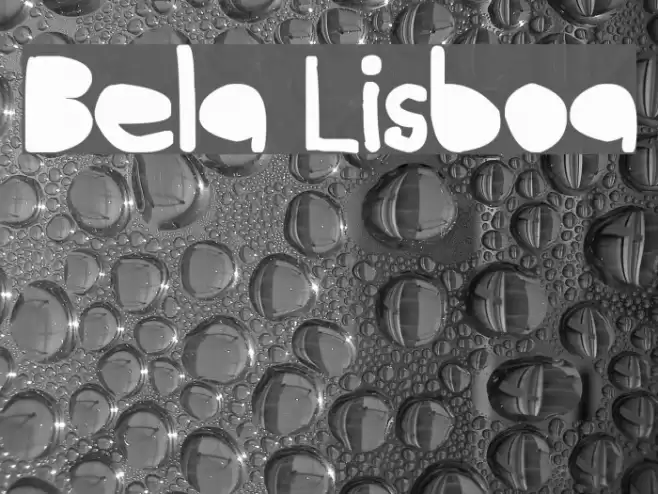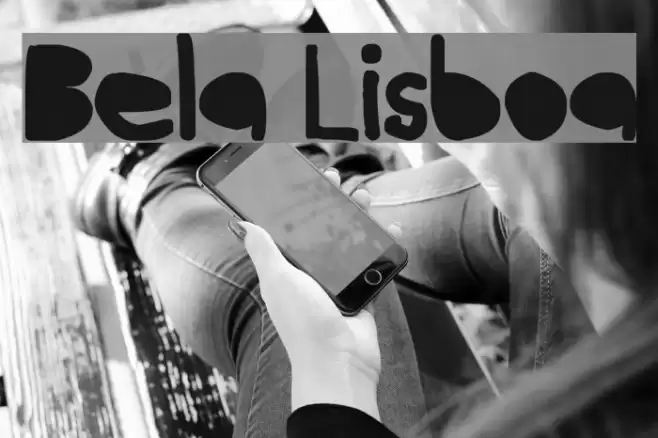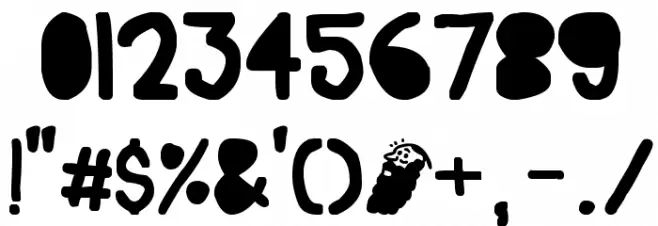
Bela Lisboa Font
Bela Lisboa Description
This font features a playful and bold design with a hand-drawn aesthetic. The characters are rounded and slightly irregular, giving them a whimsical and informal appearance. The uppercase letters are bold and prominent, while the lowercase letters maintain a consistent style with a slightly narrower form. Numbers and special characters follow the same playful theme, making the font suitable for creative and fun projects. The overall look is approachable and friendly, ideal for capturing attention in a casual context.
A playful, bold, and hand-drawn font with a whimsical style from Uncategorized fonts.
- Proposed Projects: Ideal for children's books, playful branding, casual invitations, and creative posters.
- Overall Style: Playful